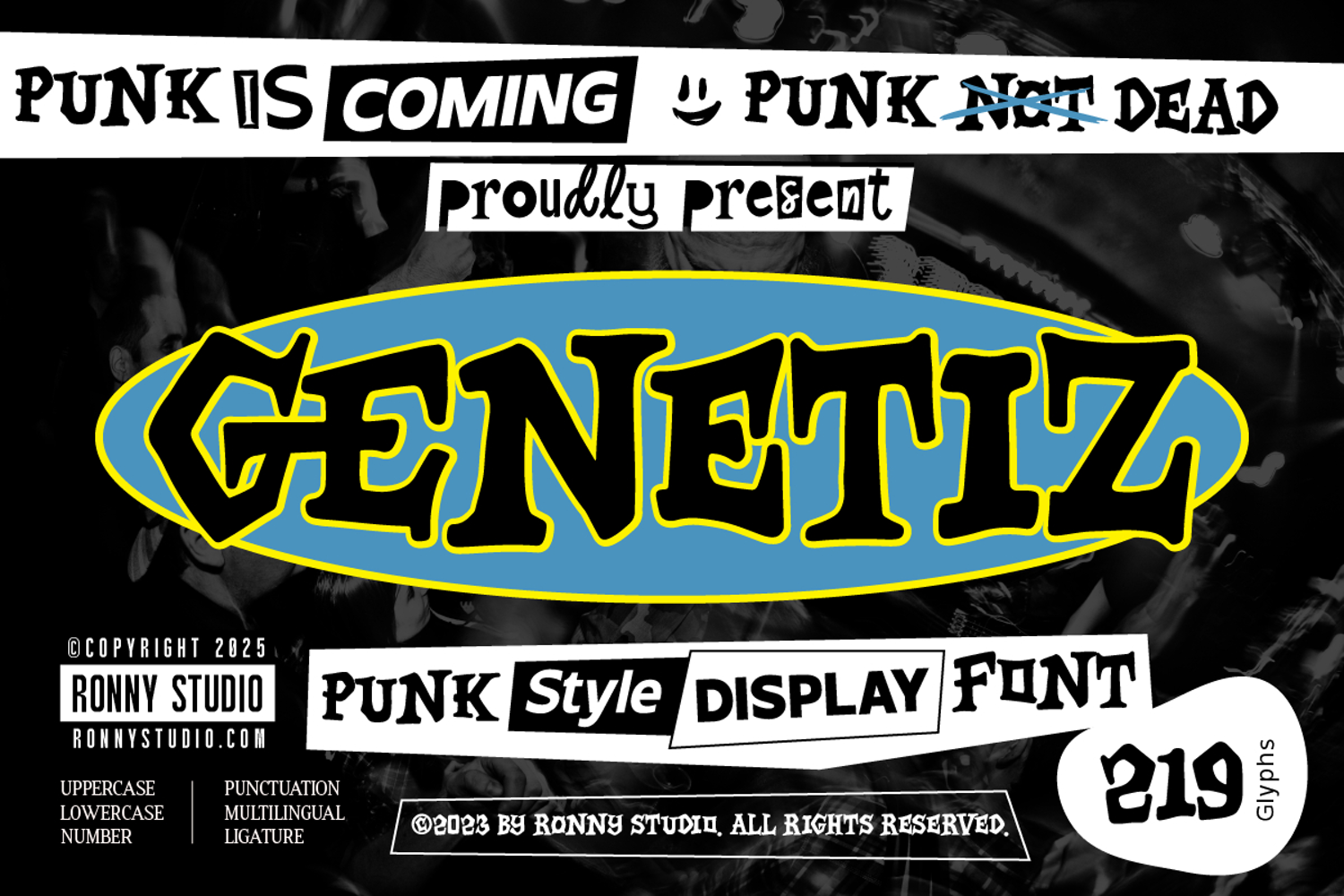
Genetiz Punk Style Display Font
Introducing: GENETIZ – Punk Style Display Font
Unleash the raw spirit of underground rebellion with GENETIZ, a punk-inspired display font packed with wild energy, expressive shapes, and the true attitude of the 90’s punk scene. Built with chaotic strokes, gritty textures, and raw visual power, GENETIZ brings a bold identity to any design that refuses to look “ordinary.” ⚡🔥
Inspired by gig posters, DIY cassette covers, band stickers, and early 2000s street-punk visuals, GENETIZ is the perfect choice for creating noisy, bold, and anti-mainstream artwork. Whether you’re designing merch, streetwear graphics, or edgy visual projects, this font will instantly elevate your work with unmistakable punk attitude. 🎸🖤
✨ Font Features
🔥 True Punk Style Display Look
🖍 Chaotic, textured & grungy letterforms
🔤 Uppercase & Lowercase
🔢 Numbers, Symbols & Punctuation
✂️ Ligatures & Alternates for visual variation
🌍 Multilingual Support
🔥 Perfect For
🎤 Punk / Rock / Indie Band Logos
🗯 Gig Posters & Underground Flyers
🎟 Zine Artwork & Sticker Packs
👕 Streetwear & T-Shirt Branding
🛹 Skateboard Graphics
💿 Album Covers & Tape Packaging
🎨 Graffiti & Urban Artwork
⚡ Edgy Branding & Youth Culture Designs
GENETIZ is made for designers who want to stand out, break the rules, and express creativity with full freedom. ✊💥